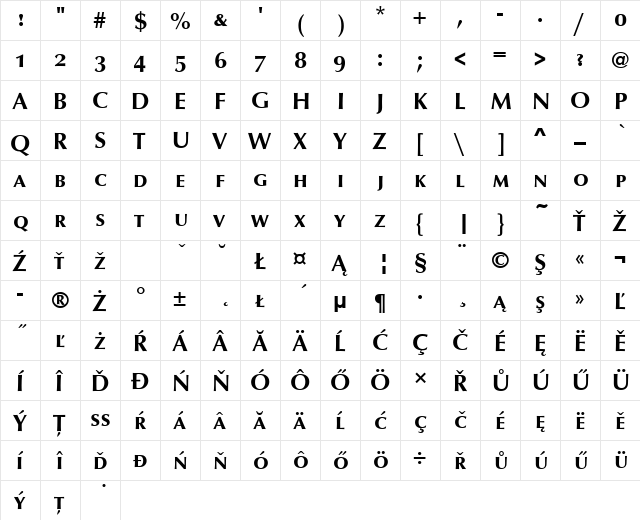
OptusSCTEEMed Regular
Design Context for OptusSCTEEMed Typeface
OptusSCTEEMed offers clean, dependable letterforms without strong stylistic allegiance, making it a practical choice for designers who need flexibility.